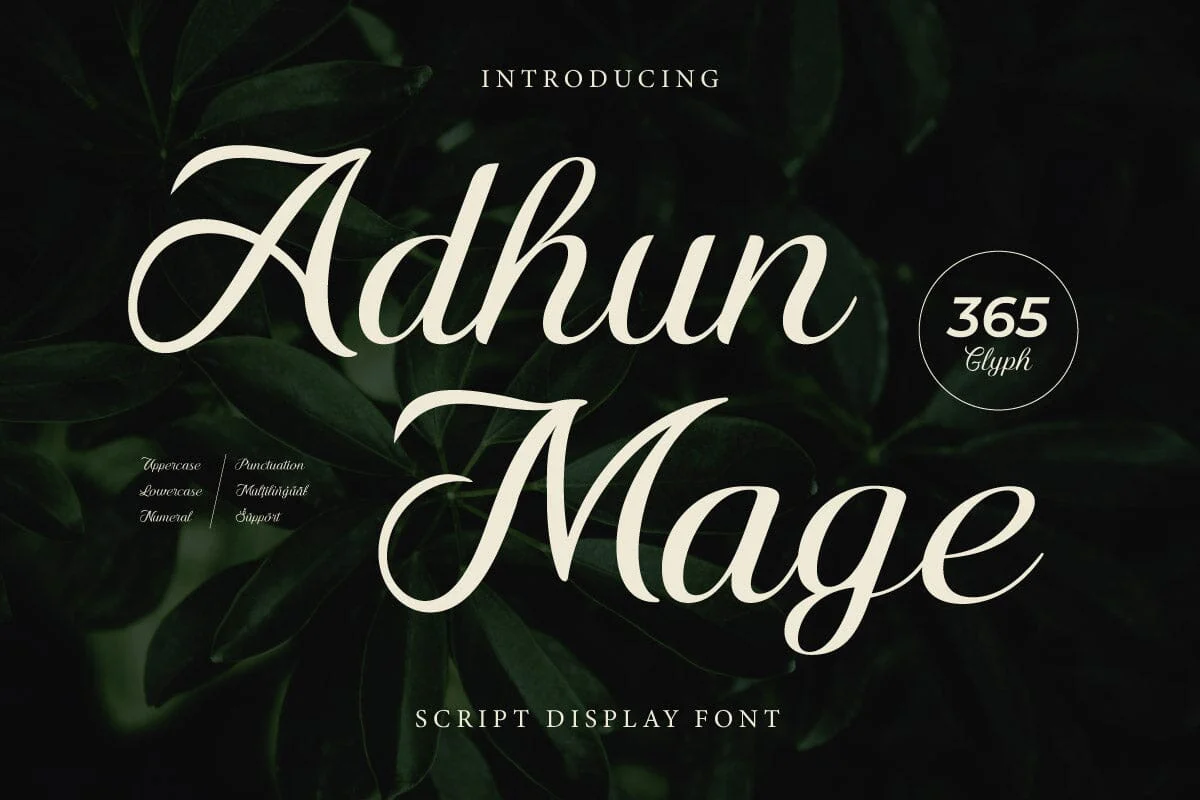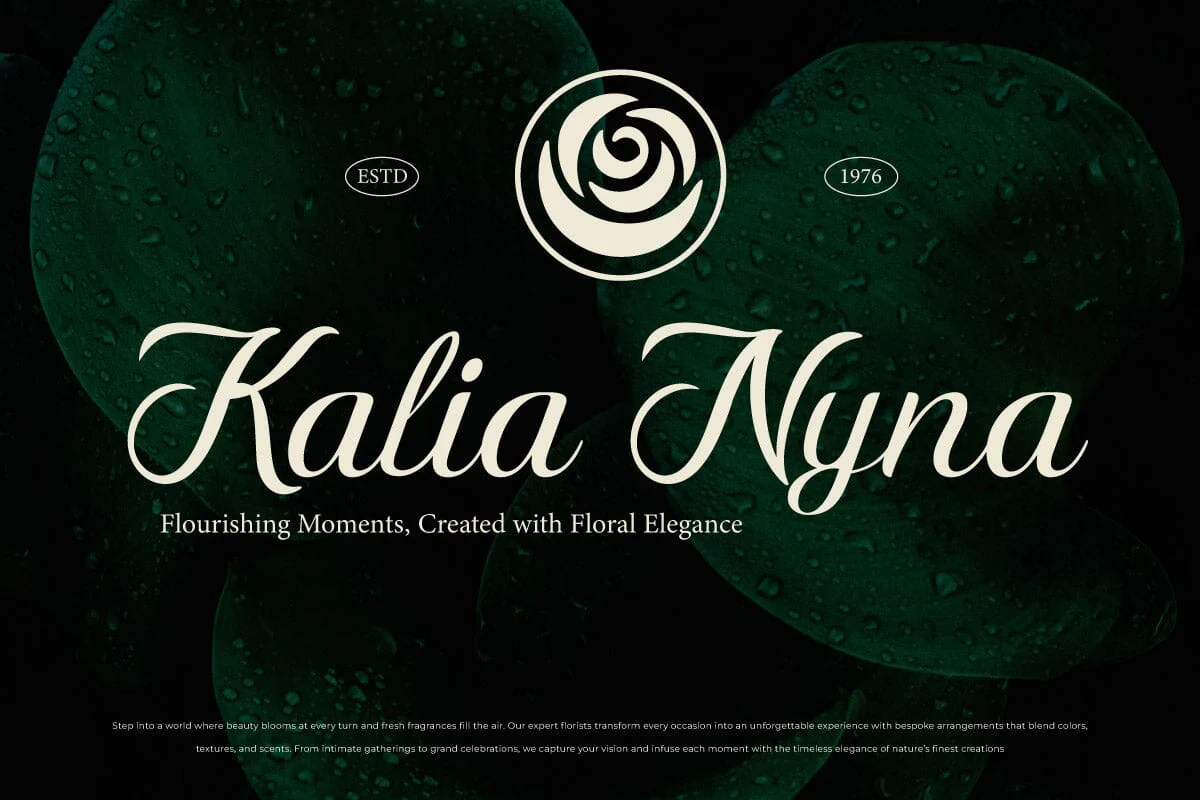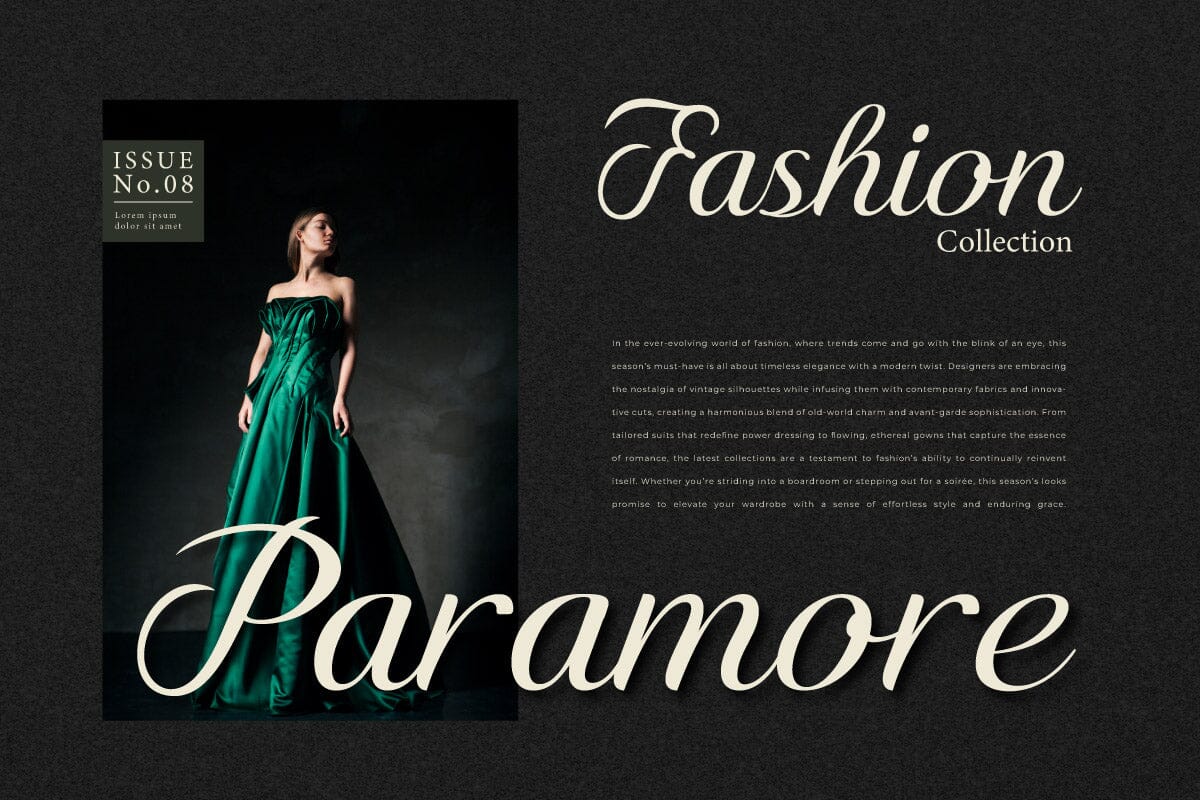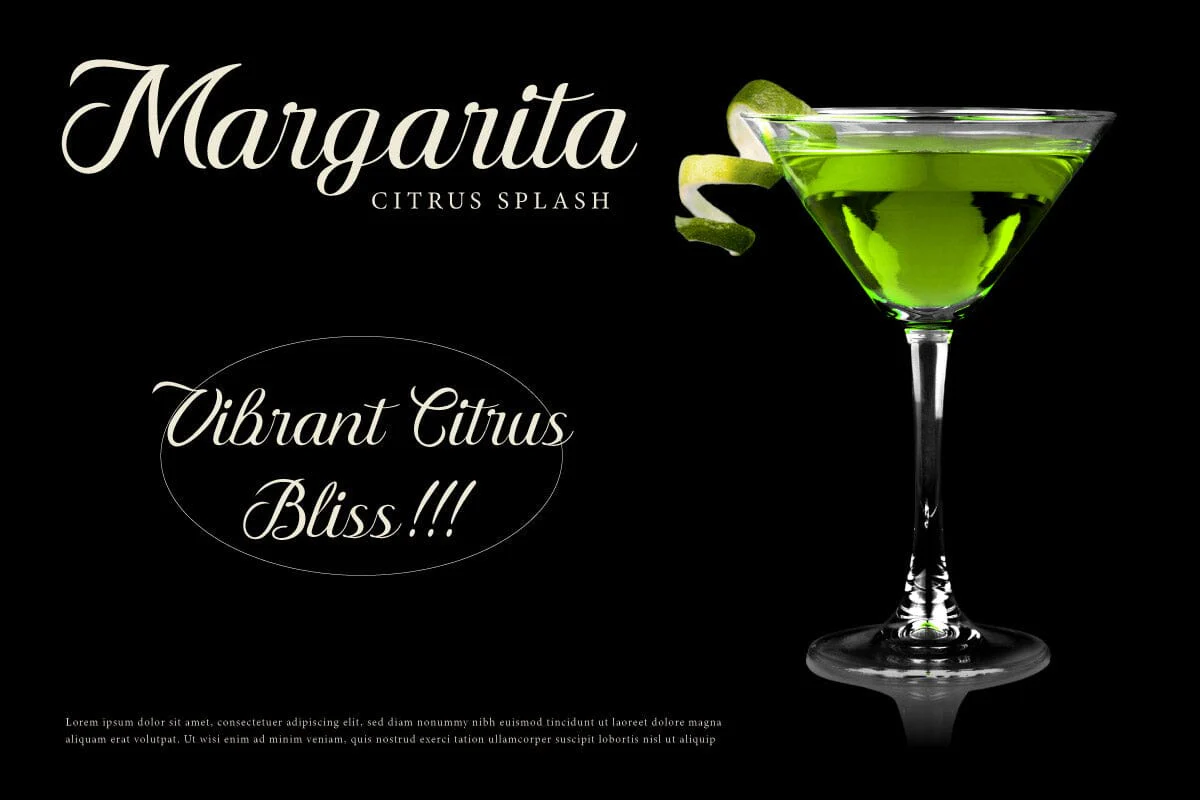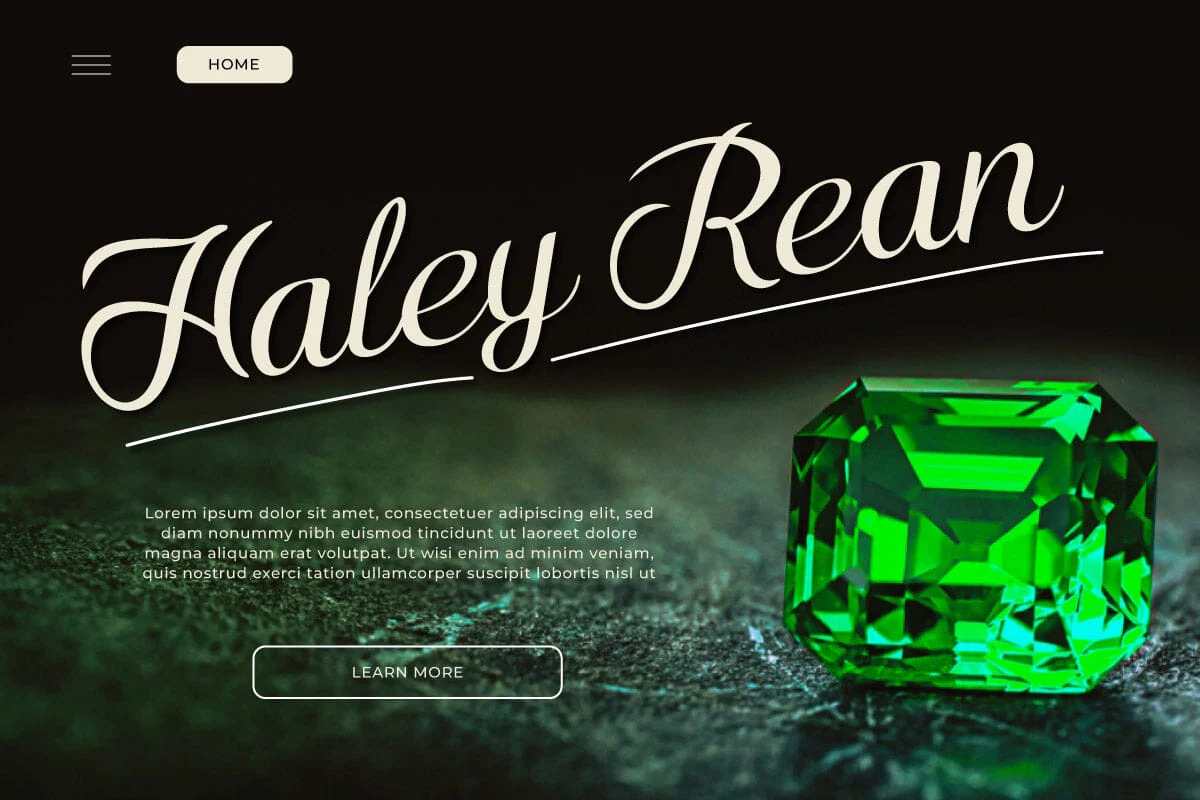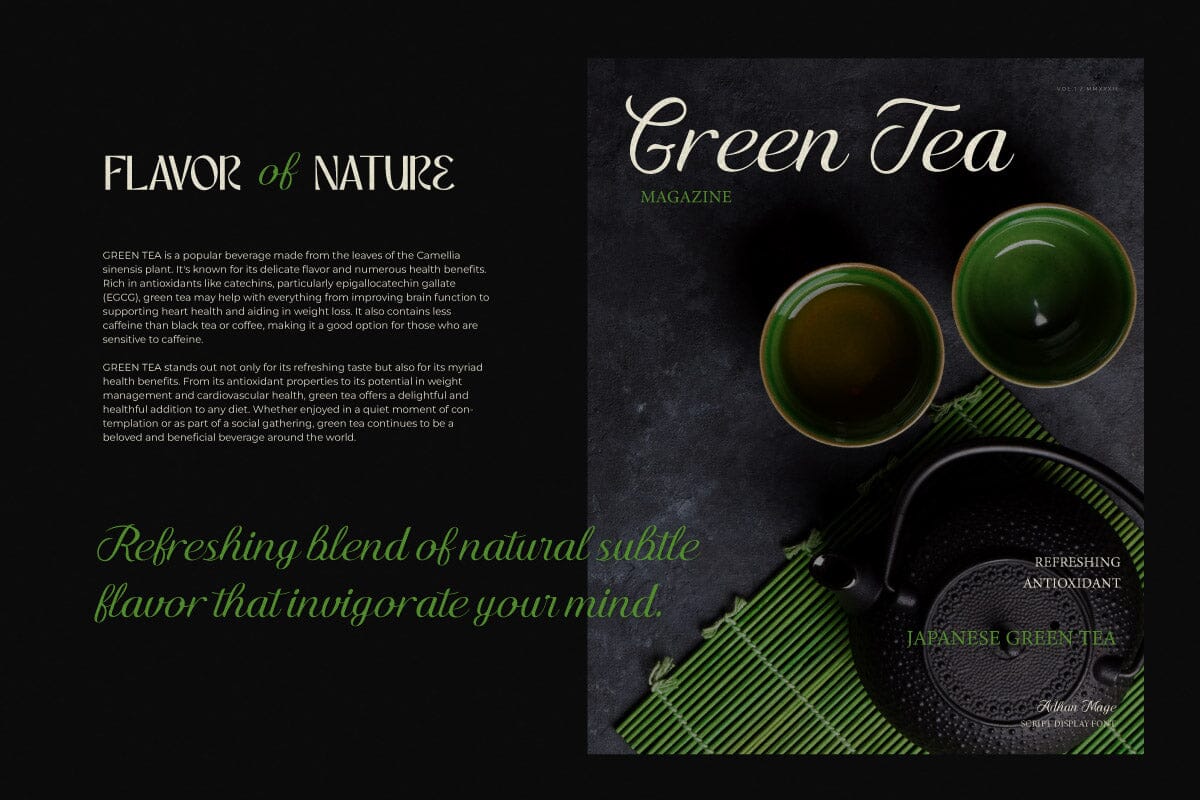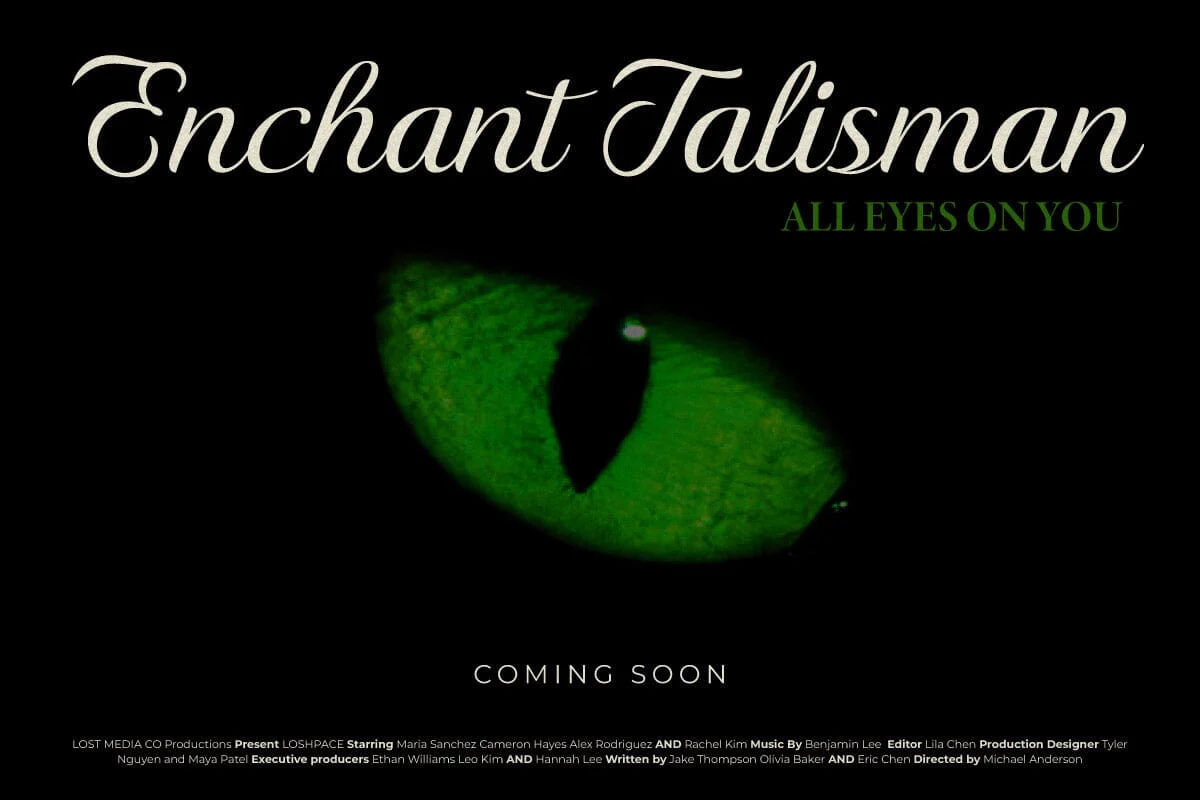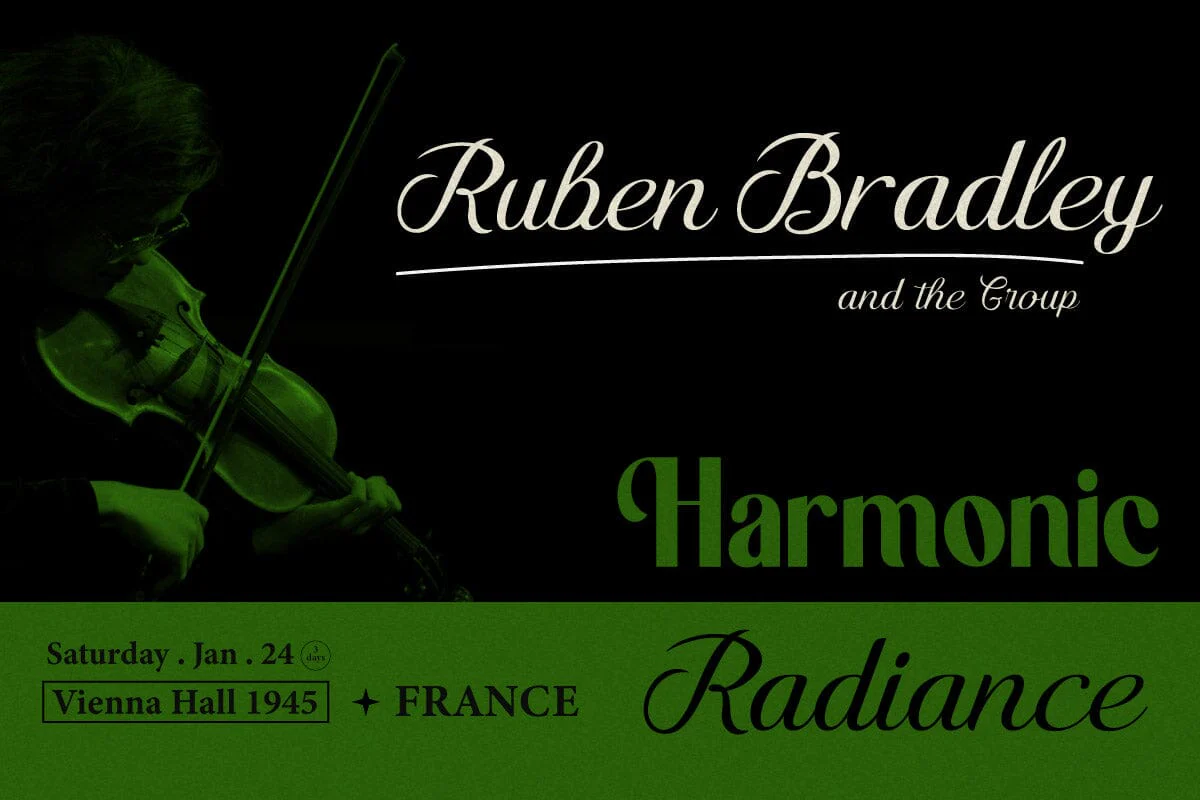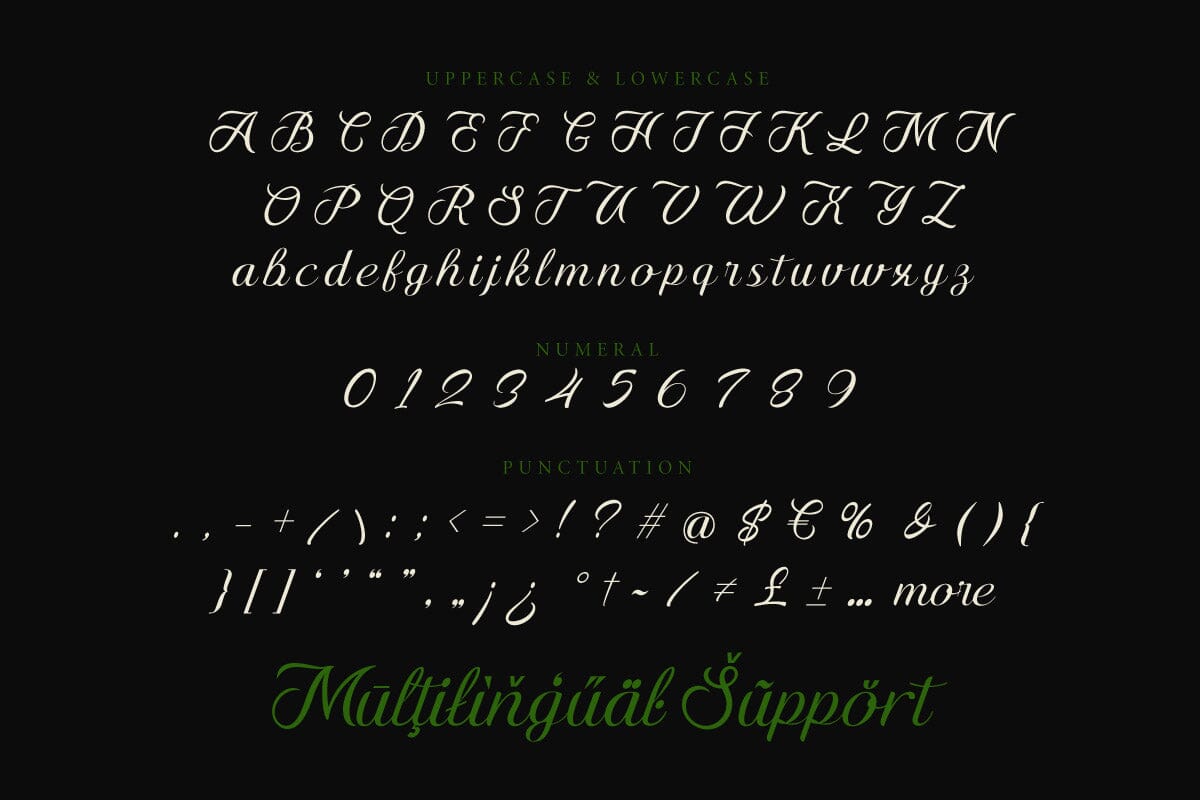
Adhun Mage - Script Font
Infuse elegance and charm into your designs with Adhun Mage, a Script Font that exudes sophistication and fluidity. Perfect for wedding invitations, elegant branding, packaging, and social media posts, Adhun Mage features gracefully flowing letterforms that mimic the natural strokes of a fine calligraphy pen. Each character is meticulously crafted to deliver a sense of luxury and refinement, making your text feel both personal and timeless.
Adhun Mageās delicate curves and smooth lines are ideal for creating a warm and inviting atmosphere in your designs. Whether youāre crafting a heartfelt message, an upscale logo, or decorative typography, this font brings a touch of class and artistry to every project. Its versatile style ensures that it complements a wide range of design aesthetics, from modern minimalism to vintage elegance.
Bring your designs to life with Adhun Mage, the Script Font that adds a touch of beauty and sophistication to every word.
Infuse elegance and charm into your designs with Adhun Mage, a Script Font that exudes sophistication and fluidity. Perfect for wedding invitations, elegant branding, packaging, and social media posts, Adhun Mage features gracefully flowing letterforms that mimic the natural strokes of a fine calligraphy pen. Each character is meticulously crafted to deliver a sense of luxury and refinement, making your text feel both personal and timeless.
Adhun Mageās delicate curves and smooth lines are ideal for creating a warm and inviting atmosphere in your designs. Whether youāre crafting a heartfelt message, an upscale logo, or decorative typography, this font brings a touch of class and artistry to every project. Its versatile style ensures that it complements a wide range of design aesthetics, from modern minimalism to vintage elegance.
Bring your designs to life with Adhun Mage, the Script Font that adds a touch of beauty and sophistication to every word.